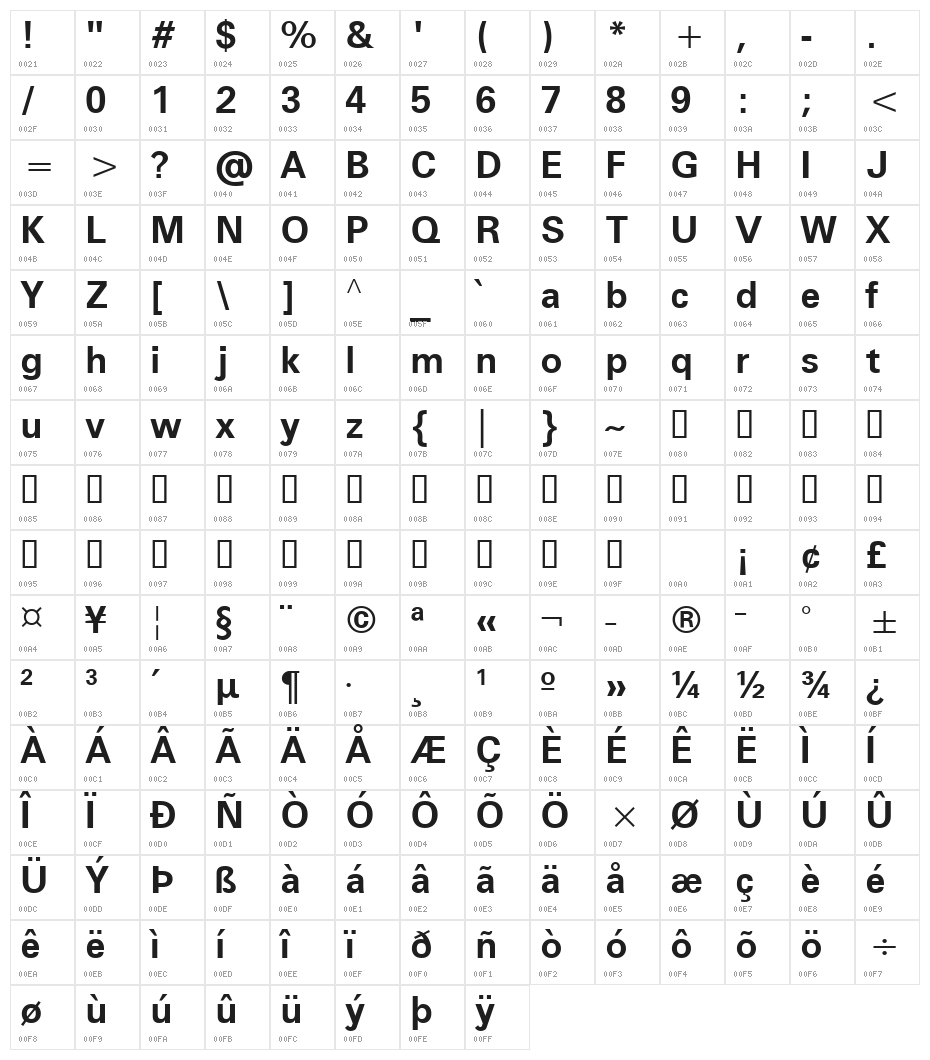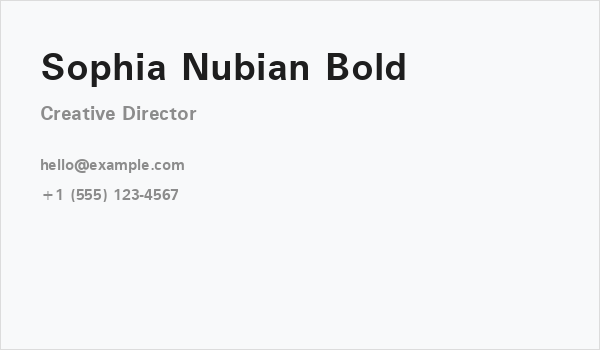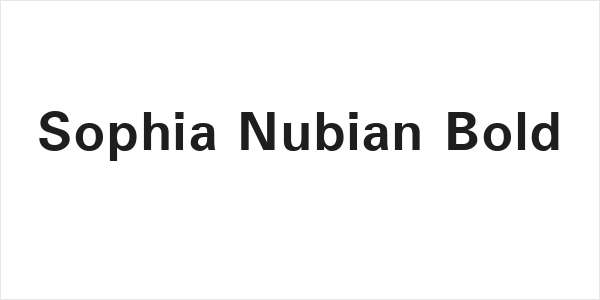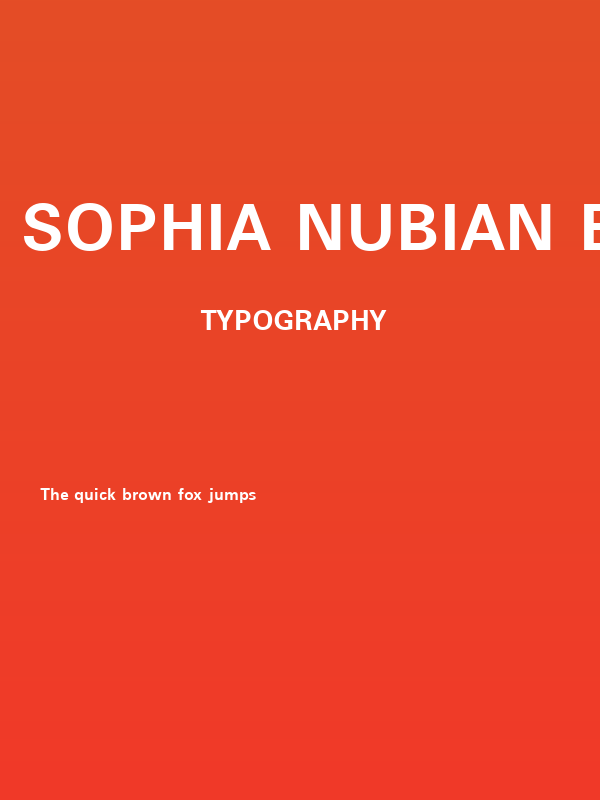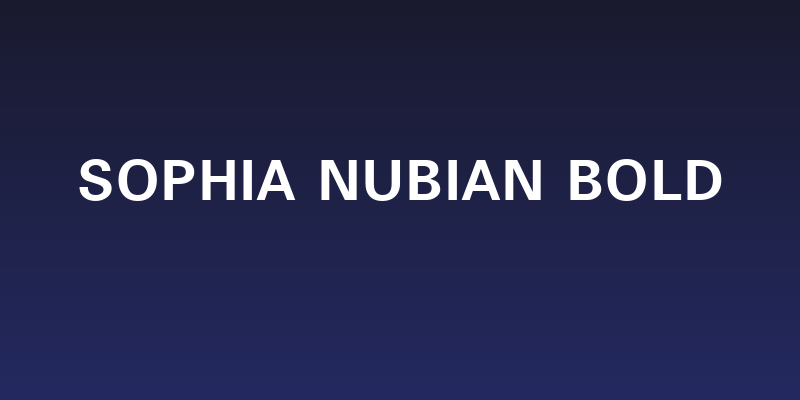
Sophia Nubian Bold Font
Sophia Nubian Bold Description
This font is a bold, sans-serif typeface characterized by its clean and modern appearance. The letters are evenly spaced with a consistent stroke width, giving it a uniform and professional look. The uppercase and lowercase letters are well-proportioned, making it highly legible. The numerals are clear and distinct, ensuring readability in various contexts. The special characters are designed to match the overall style, maintaining the font's cohesive aesthetic. Its simplicity and clarity make it versatile for a wide range of applications.
| Use Case | Headlines, Logos, Digital content |
| Proposed Projects | Ideal for branding, advertising, headlines, and digital content where clarity and impact are essential. |